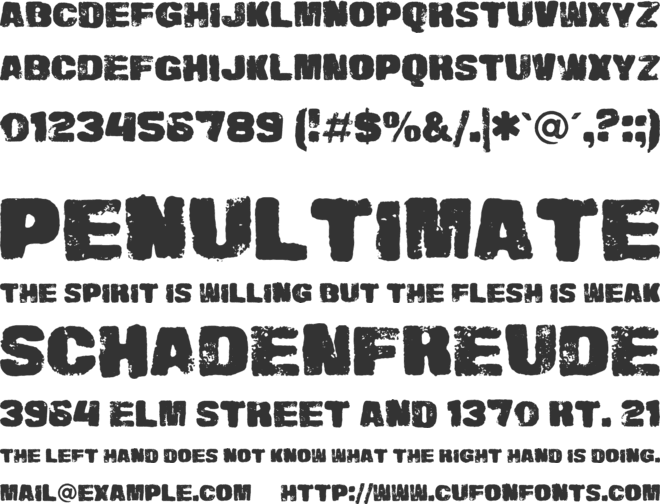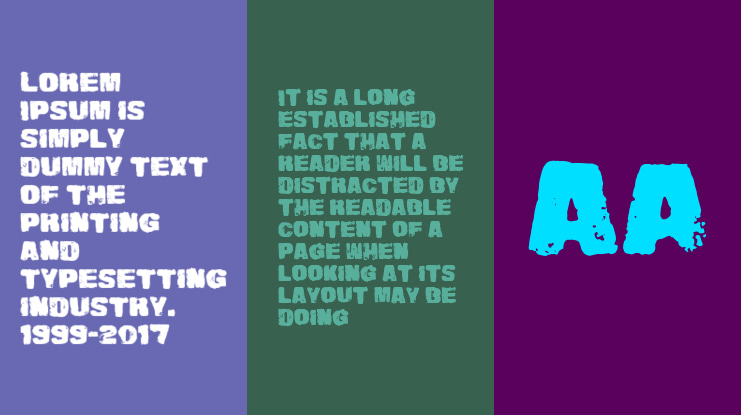
Snailmate started with a foam set of letters I found in a thrift store. It was missing a couple of characters and had only uppercase and no punctuation. I used paint to make the letters and scanned them. I created the rest based on what I had. Hopefully it’s just what you needed.